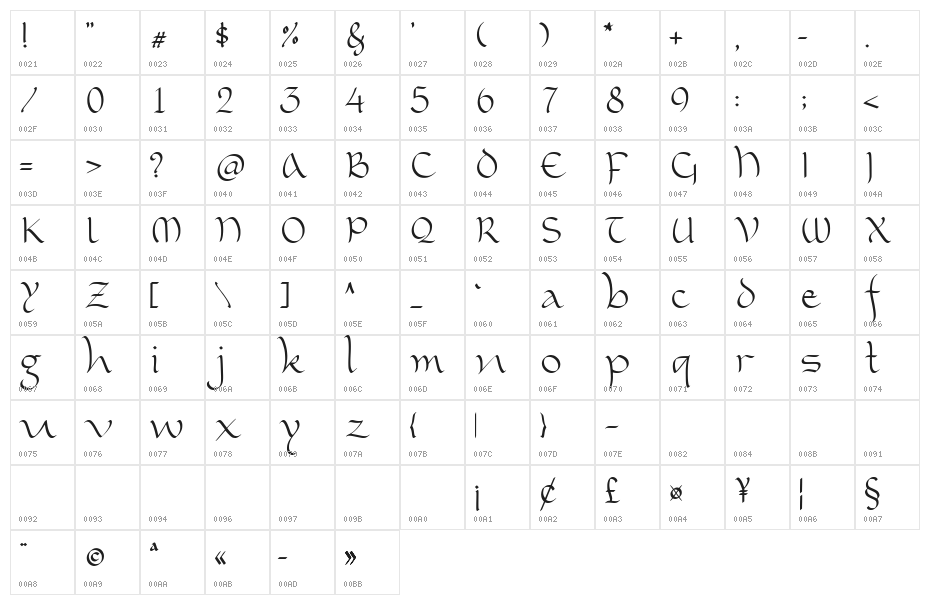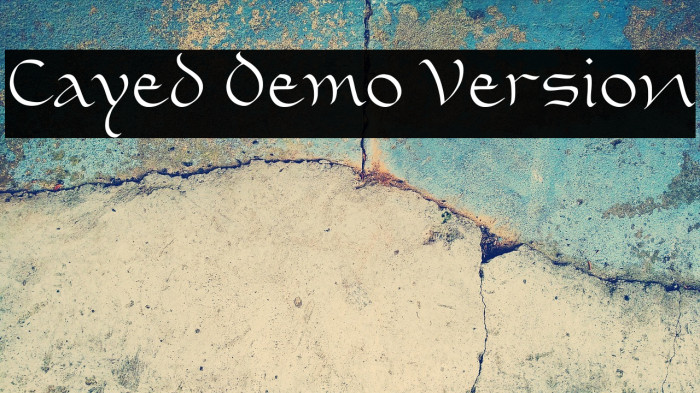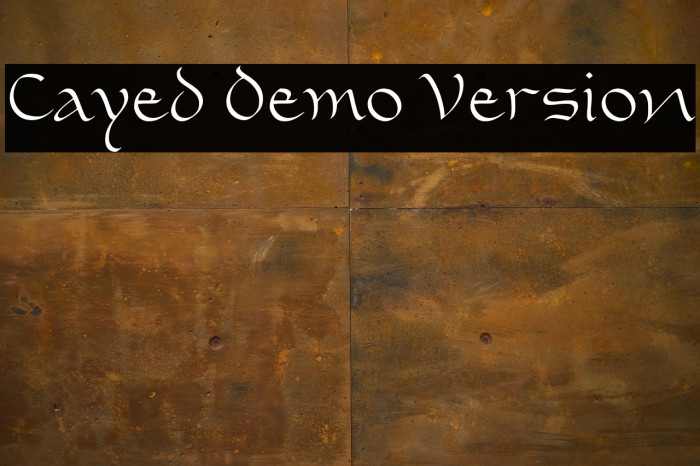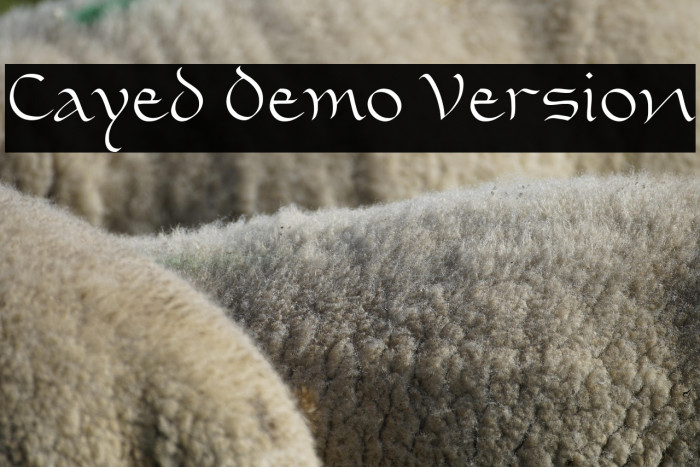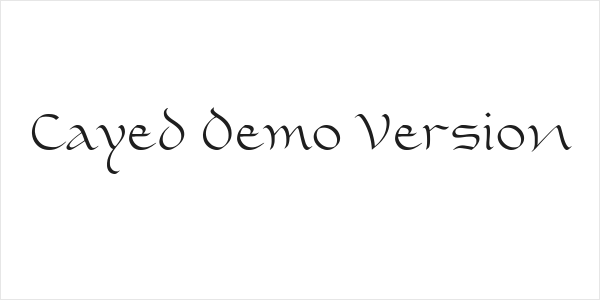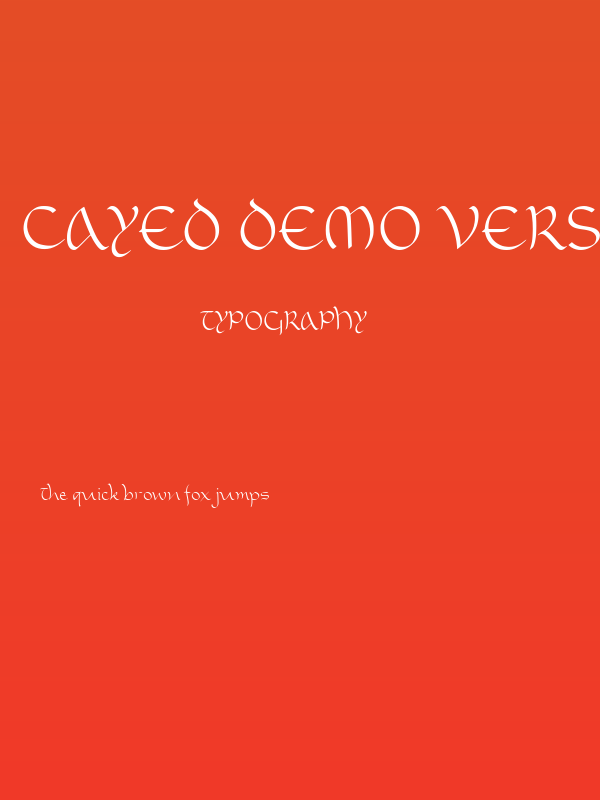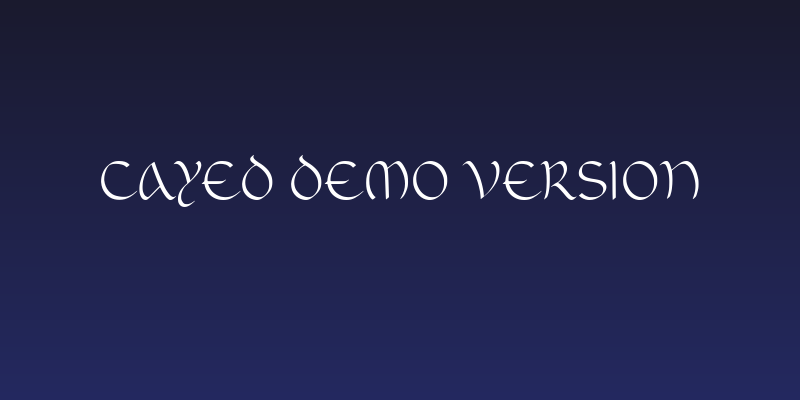
Cayed Demo Version Font
Cayed Demo Version Description
This font features a unique and artistic style, characterized by its flowing, calligraphic strokes and elegant curves. The uppercase letters exhibit a distinct flair, with elongated serifs and a slight slant that adds a sense of movement and grace. The lowercase letters maintain this fluidity, with smooth transitions and a harmonious balance between thick and thin lines. The numerals are bold and clear, yet they retain the artistic essence of the font, making them stand out. Special characters are designed with the same attention to detail, ensuring consistency throughout. This font is ideal for projects that require a touch of sophistication and creativity.
| Use Case | Logos, Headlines, Invitations |
| Proposed Projects | Ideal for wedding invitations, elegant branding, artistic posters, and creative projects. |